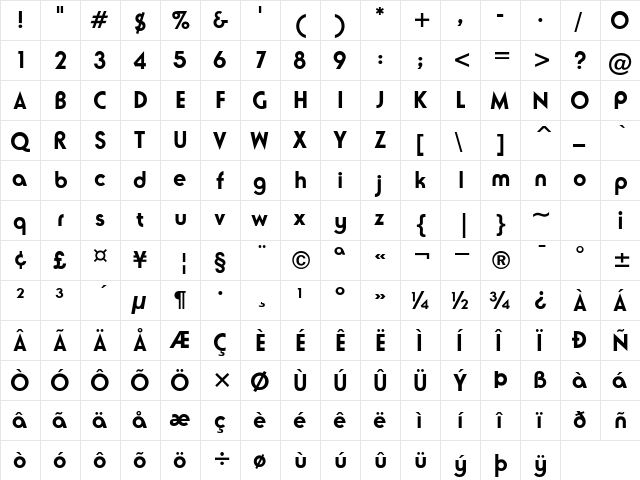
NeuseSSK Bold
Design Context for NeuseSSK Typeface
NeuseSSK offers clean, dependable letterforms without strong stylistic allegiance, making it a practical choice for designers who need flexibility. The heavy weight commands attention and anchors typographic hierarchies.